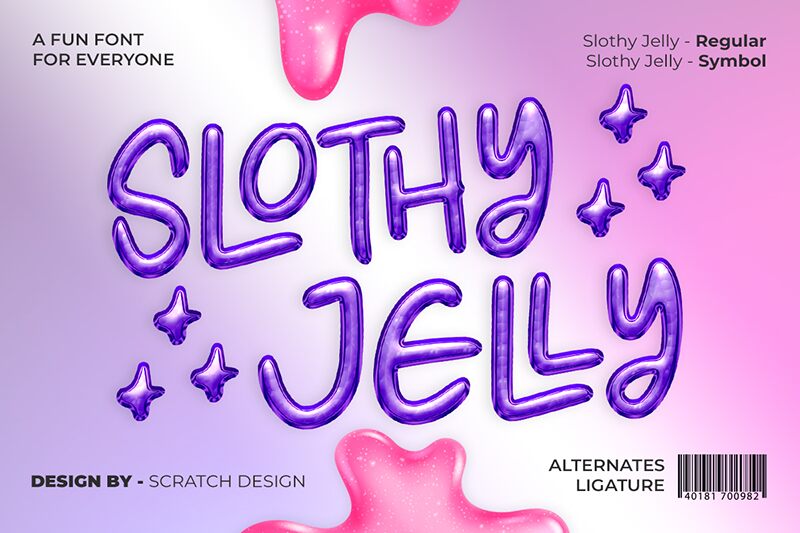
Slothy Jelly font by Scratch Design is a free handwritten font that exudes a friendly and approachable feel. Crafted for casual purposes, it offers a relaxed yet modern aesthetic suitable for branding, advertising, and other casual uses. It carries an inviting look that easily connects with audiences.
Use it for diary titles, handwriting-alike experiences in mobile applications or websites, scripted event invitations, children’s books cover design work and illustrations inside of them. \It’ll brightly shine in cartoon titles, comic strips speech bubbles texts or simply as digital stickers fonts used only for your personal needs.